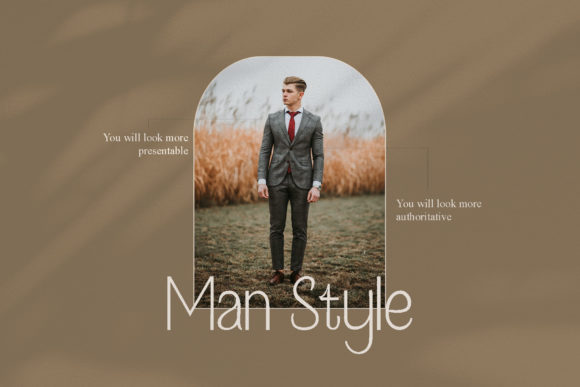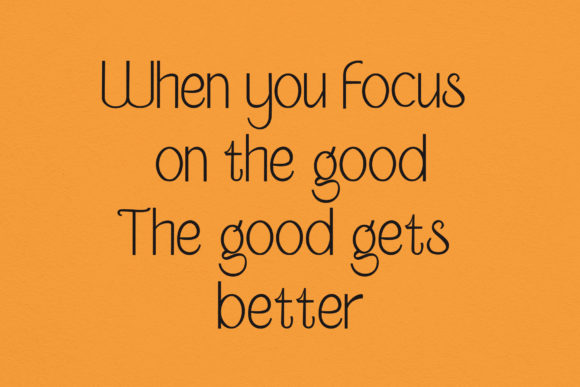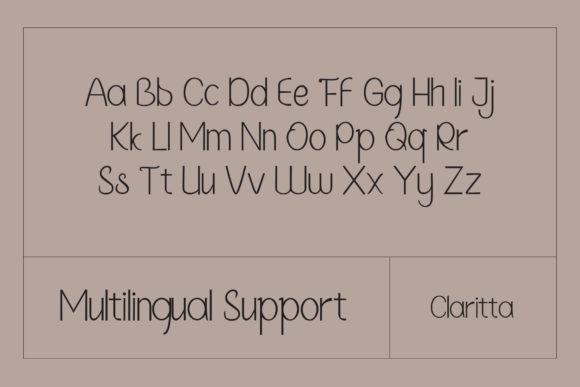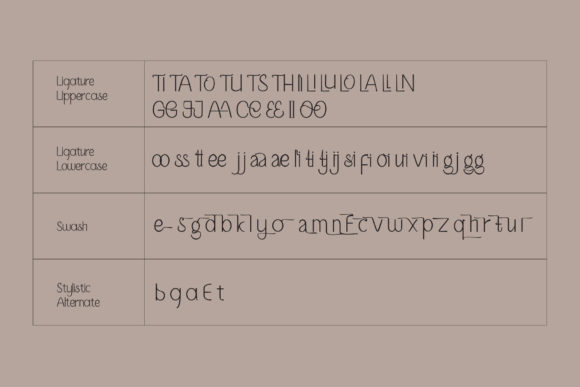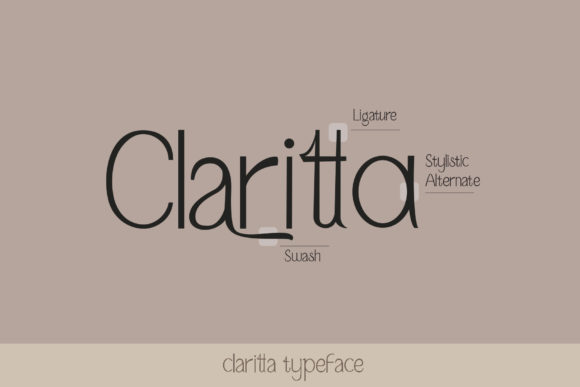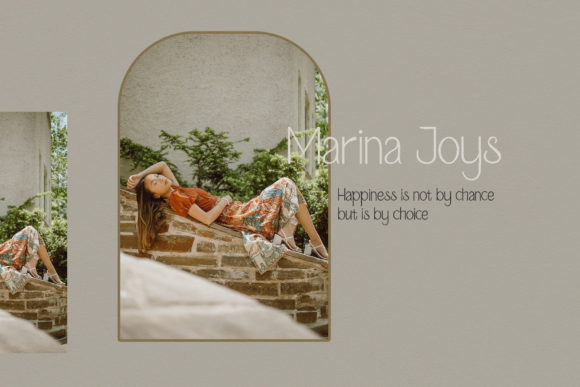
Introducing Claritta Font: A Delicate and Vintage Sans Serif for Fashion and Editorial Designs
In the world of typography, fonts play a crucial role in defining the aesthetic and tone of a design. For designers and crafters looking for a unique and elegant sans serif font, Claritta is an excellent choice. This beautiful font is characterized by its delicate, light, and vintage style, making it perfect for fashion branding, editorial designs, and more.
What Makes Claritta Font Special?
Claritta font is defined by its smooth curves, which give it a distinctive and sophisticated look. Its sans serif design ensures that the font remains clean and uncluttered, making it ideal for use in a variety of design applications. Whether you’re working on a fashion brand’s logo, an editorial layout, or a craft project, Claritta is sure to add a touch of elegance and refinement.
PUA Encoding for Easy Access to Glyphs and Swashes
One of the standout features of Claritta font is its PUA (Private Use Area) encoding. This means that designers can access all glyphs and swashes with ease, allowing for greater flexibility and creativity in their designs. With PUA encoding, you can easily insert special characters, ligatures, and swashes into your text, giving your designs a unique and personalized touch.
Perfect for Fashion Branding and Editorial Designs
Claritta font is particularly well-suited for fashion branding and editorial designs. Its delicate and vintage style makes it perfect for use in:
- Fashion logos and branding materials
- Editorial layouts, such as magazines and newspapers
- Craft projects, like handmade cards and invitations
- Digital designs, including social media graphics and blog posts
Why Choose Claritta Font?
There are many reasons why designers and crafters should consider using Claritta font in their projects. Here are just a few:
- Elegant and sophisticated design: Claritta’s smooth curves and delicate style make it perfect for designs that require a touch of elegance and refinement.
- Highly versatile: Claritta can be used in a wide range of design applications, from fashion branding to editorial designs and craft projects.
- Easy to use: With PUA encoding, designers can easily access all glyphs and swashes, making it simple to create unique and personalized designs.
- Unique and distinctive: Claritta’s vintage style sets it apart from other sans serif fonts, making it perfect for designers looking to create something truly unique.
Tips for Using Claritta Font
To get the most out of Claritta font, here are a few tips to keep in mind:
- Use it sparingly: Claritta’s delicate style makes it perfect for use in headlines and titles, but it can also be used for body text in smaller sizes.
- Experiment with swashes and glyphs: With PUA encoding, you can easily add swashes and glyphs to your text to create a unique and personalized look.
- Pair it with other fonts: Claritta can be paired with other fonts to create a unique and interesting contrast. Try pairing it with a bold serif font for a striking effect.
Claritta font is a beautiful and elegant sans serif font that’s perfect for fashion branding, editorial designs, and craft projects. Its delicate and vintage style, combined with its PUA encoding, make it a versatile and easy-to-use font that’s sure to add a touch of sophistication to any design. Whether you’re a designer or crafter, Claritta is definitely worth checking out.